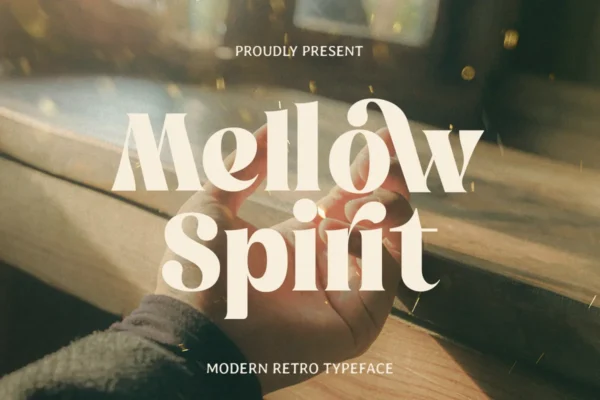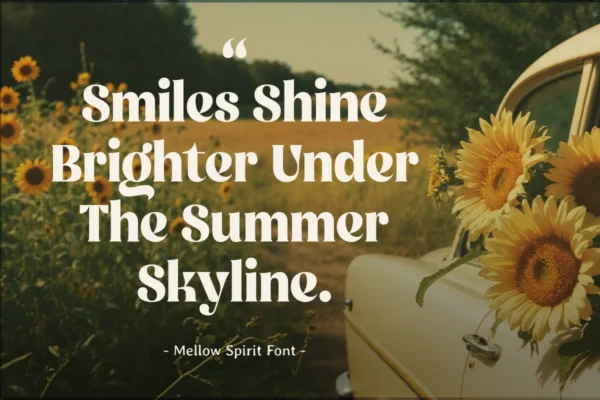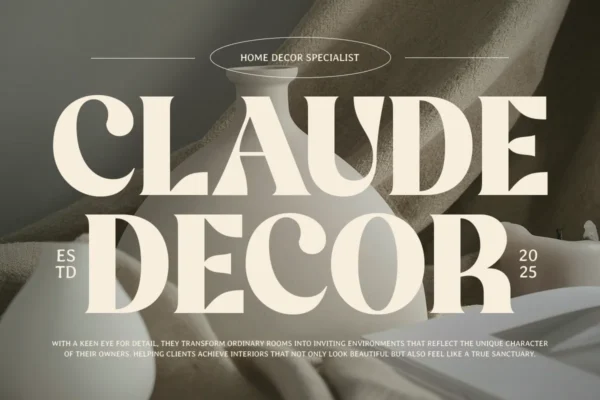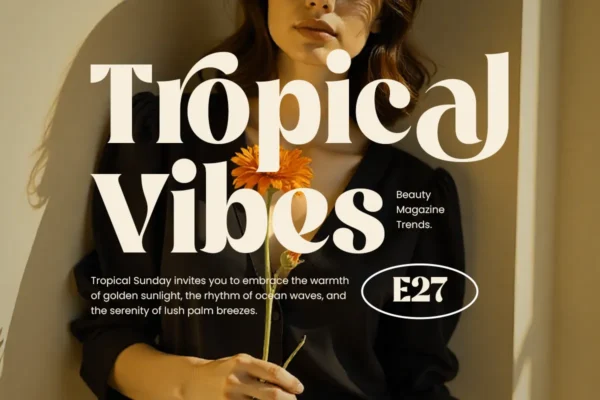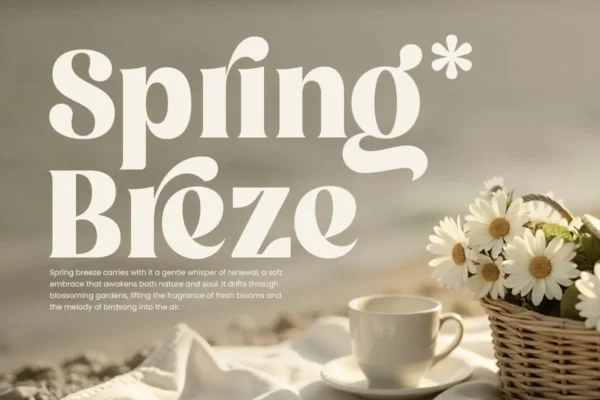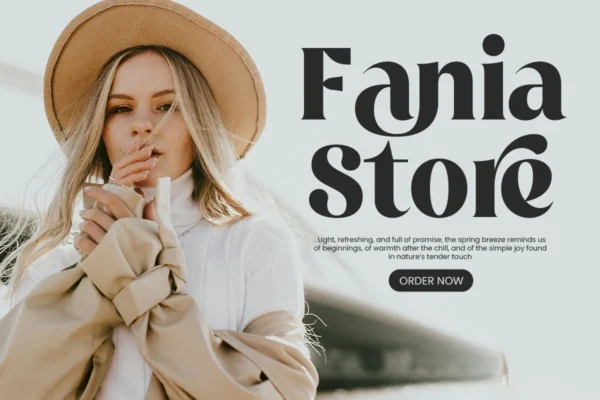
Mellow Spirit – Modern Retro Font
Introducing Mellow Spirit, a display font that channels a vintage aesthetic to bring a dose of creativity and fun to your projects. Its groovy character shapes are infused with a modern sensibility, capturing the warm essence of the 70s and 80s while ensuring your work looks contemporary and fresh.
Mellow Spirit is perfectly suited for logos, merchandise design, event posters, and lifestyle branding. It provides a nostalgic yet cheerful energy that guarantees your creations will capture attention.
- Advanced OpenType features like ligatures and stylistic alternates